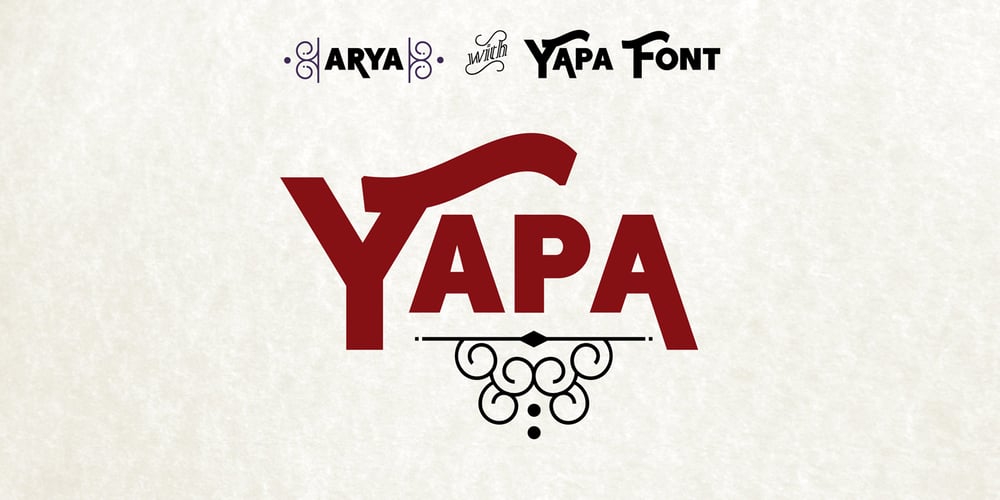
Yapa Font Family was designed by Vicente Lamónaca and published by TipoType. Yapa contains 2 styles and family package options. Yapa is a display font. Ideal for eye-catching titles, logos and labels, based on the Arya and Prevya typefaces. It is based on Roman proportions, but is accompanied by swashes and decorative ornaments.